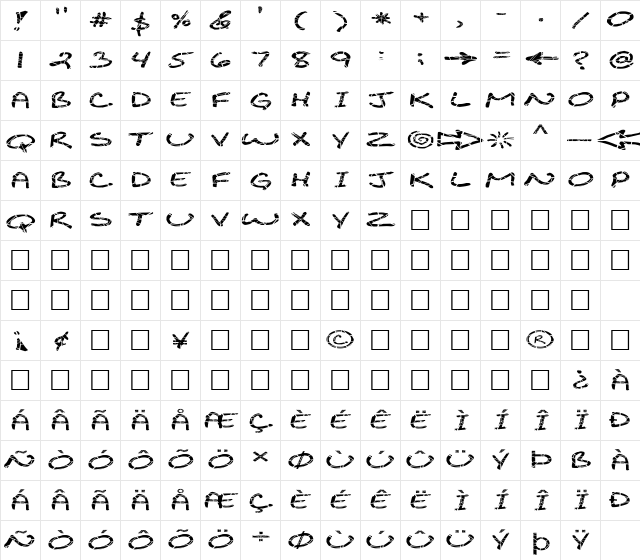
Complete FZ JAZZY 29 CRACKED EX Bold glyph index. Displaying only characters natively supported by FZ JAZZY 29 CRACKED EX Bold font.
FZ JAZZY 29 CRACKED EX is a composed and adaptable typeface that performs quietly and consistently across a wide range of design contexts. Its bold stroke weight gives it real presence on the page.